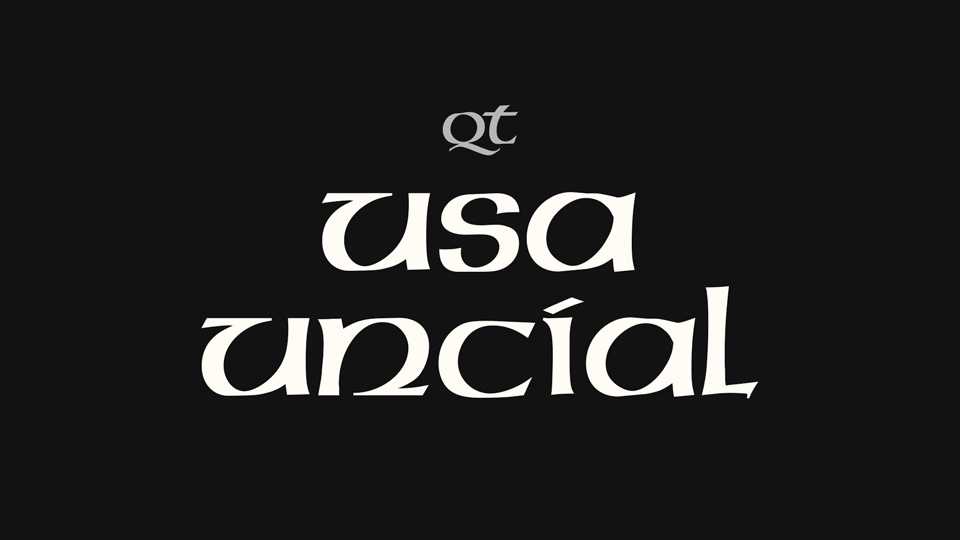
Download USA Uncial font, a typeface based on the Uncial letterform that used across Europe during the time of the late Roman Empire, and thereafter as well.